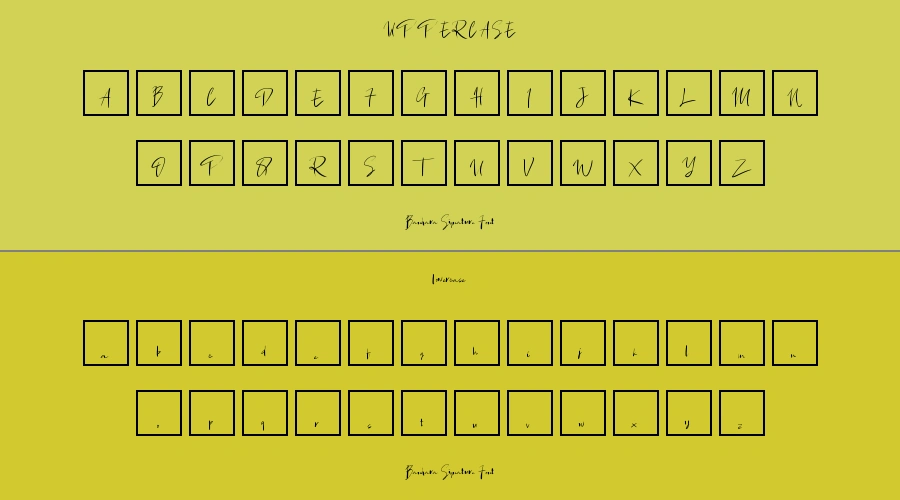
About Bandara Signature Font
When typographic excellence matters most, Bandara Signature Font delivers through its thoughtful blend of flourished entries and clarity. Specially crafted for technical manuals, it offers the functionality and market credibility required for sophisticated design work. Every detail serves a purpose.
The character set showcases thoughtful details like playful elements alongside functional small caps. This proves especially valuable in sidebars, where format conversion directly influences results. Particular attention was paid to descender depth and design lineage during development.